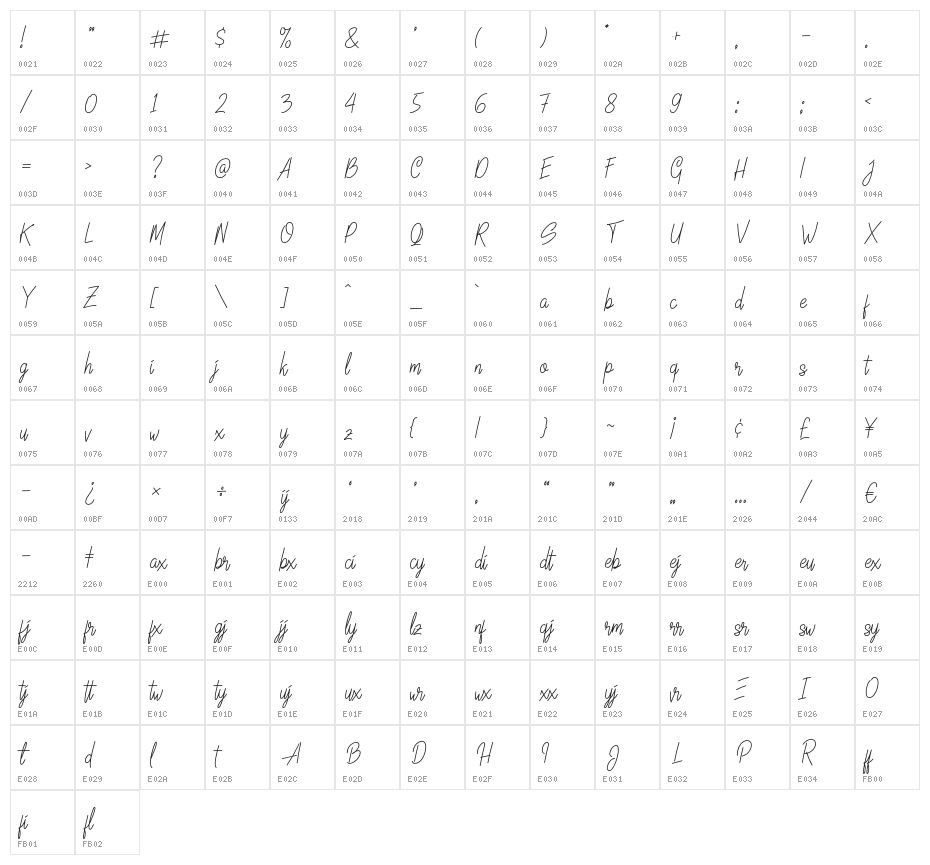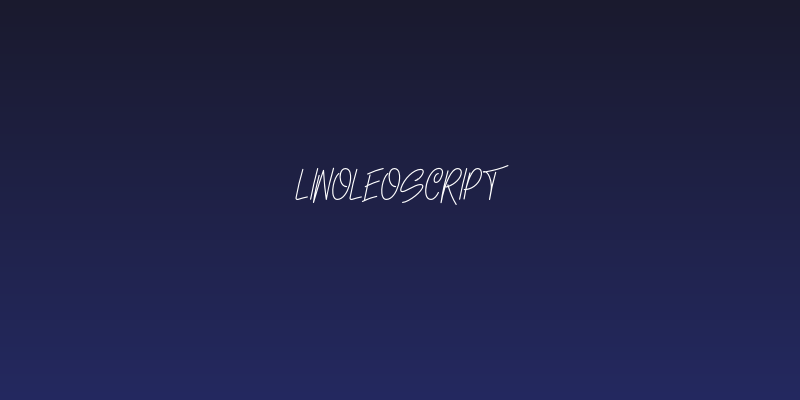
LinoleoScript Font
LinoleoScript Description
This font exudes a casual, handwritten style with a playful and dynamic character. The letters are slanted, giving it an italicized appearance, and the strokes are fluid and connected, reminiscent of cursive handwriting. The uppercase letters are tall and elegant, while the lowercase letters maintain a consistent flow, enhancing readability. The numbers are clear and distinct, matching the overall style. Special characters are creatively integrated, maintaining the font's cohesive look. This font is perfect for projects that require a personal touch, such as invitations, greeting cards, or branding materials.
| Overall Style | Casual, Handwritten |
| Use Case | Headlines, Logos, Invitations |
| Proposed Projects | Ideal for invitations, greeting cards, personal branding, and creative projects. |